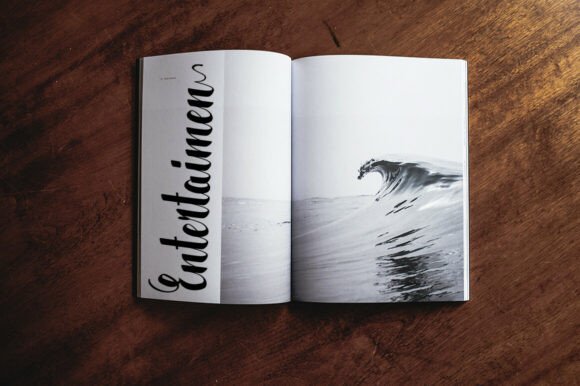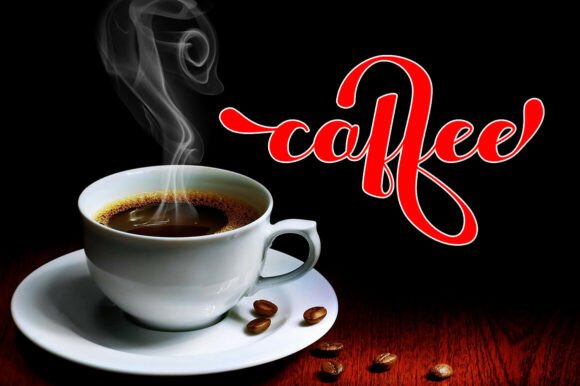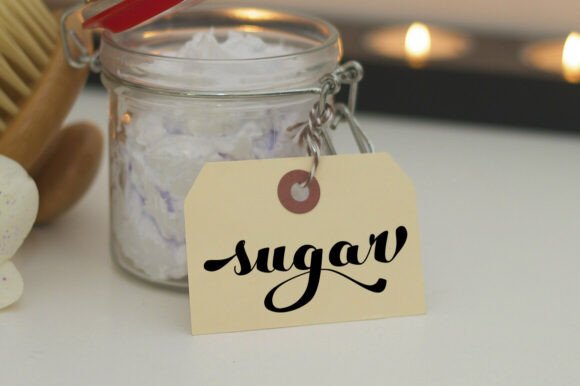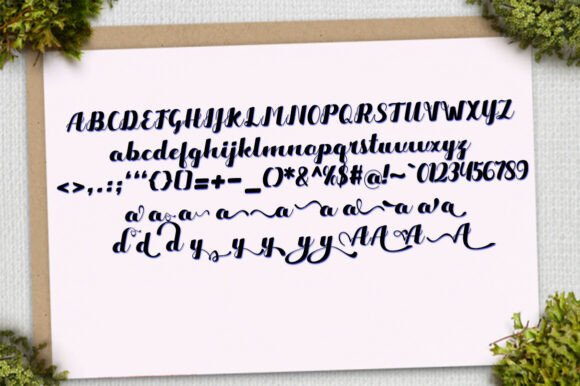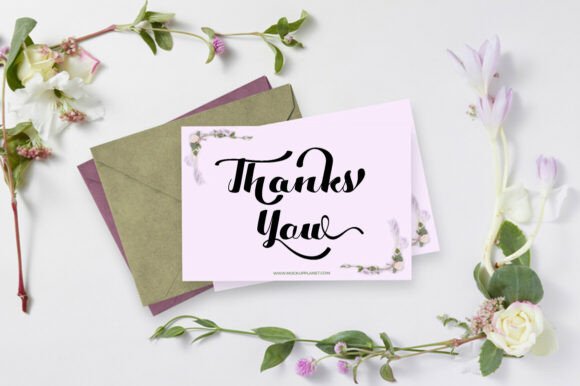
Introduction to Jaylus Script Font
Infuse your designs with a sense of rhythm and joy using Jaylus, a modern script font that balances thick, confident strokes with whimsical, bouncy baselines.
Whether you are crafting festive holiday cards, vibrant social media graphics, or a youthful brand identity, Jaylus offers a bold presence that remains approachable and sweet .
Jaylus Script Font offers exceptional quality and versatility, making it a valuable addition to your design toolkit. Whether you’re creating for personal projects or commercial use, Jaylus Script Font delivers professional results.